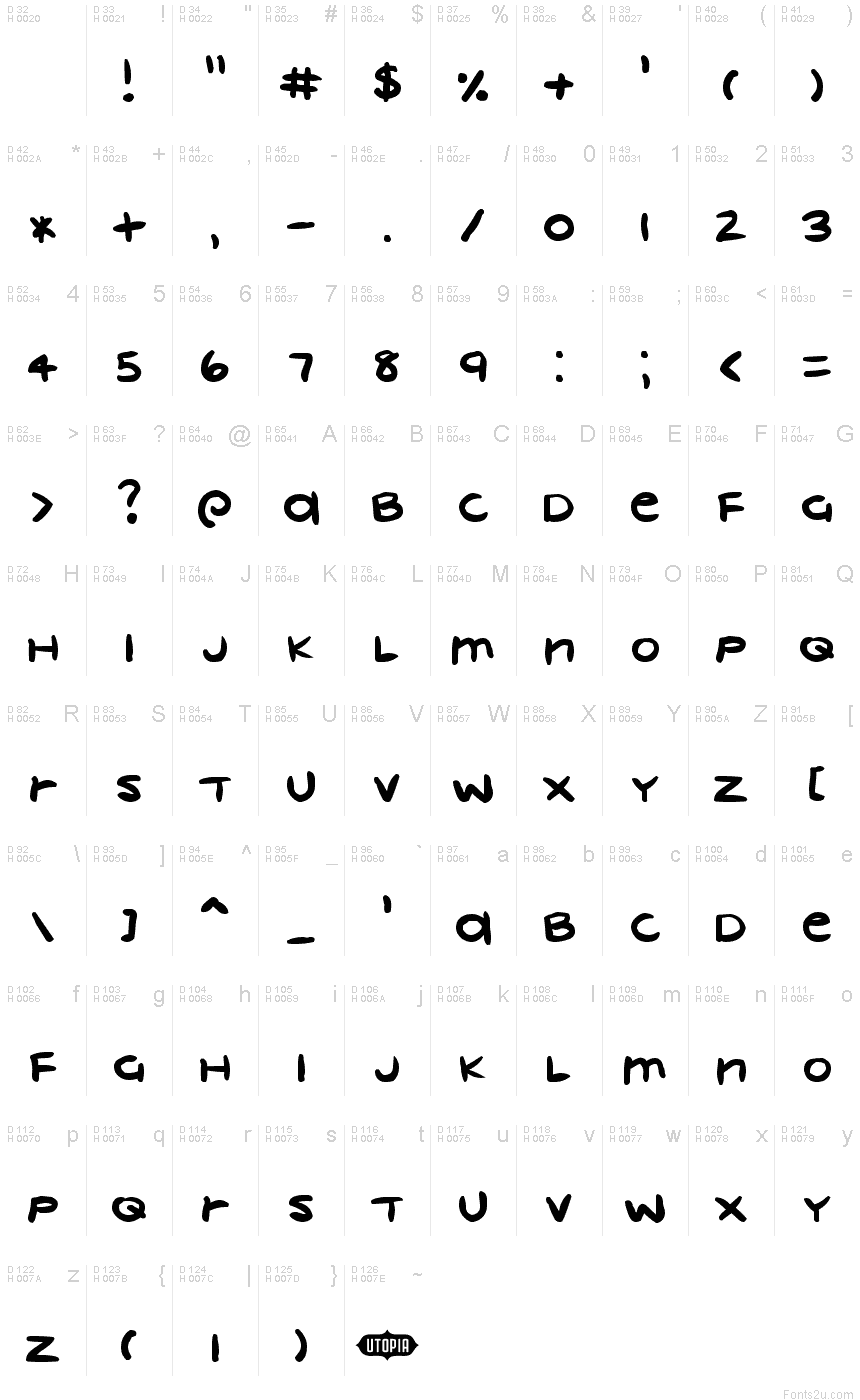
Crayon font by Utopiafonts is a free handwritten typeface with the chunky, inky charm of a marker dragged across paper. Its rounded forms, loose rhythm, and slightly wobbly strokes feel like a kid’s bold lettering—casual, friendly, and full of motion. The letters stay legible even at smaller sizes, so you get all the playful character without sacrificing clarity.
Using Crayon, this free font shines on kids’ book covers, classroom printables, birthday invitations, toy packaging, playroom posters, and cheerful social media graphics. It’s a natural fit for logos and headlines aimed at children or family audiences. Pair Crayon with a clean sans serif for small supporting text and let this handwritten star handle your loud, fun titles.